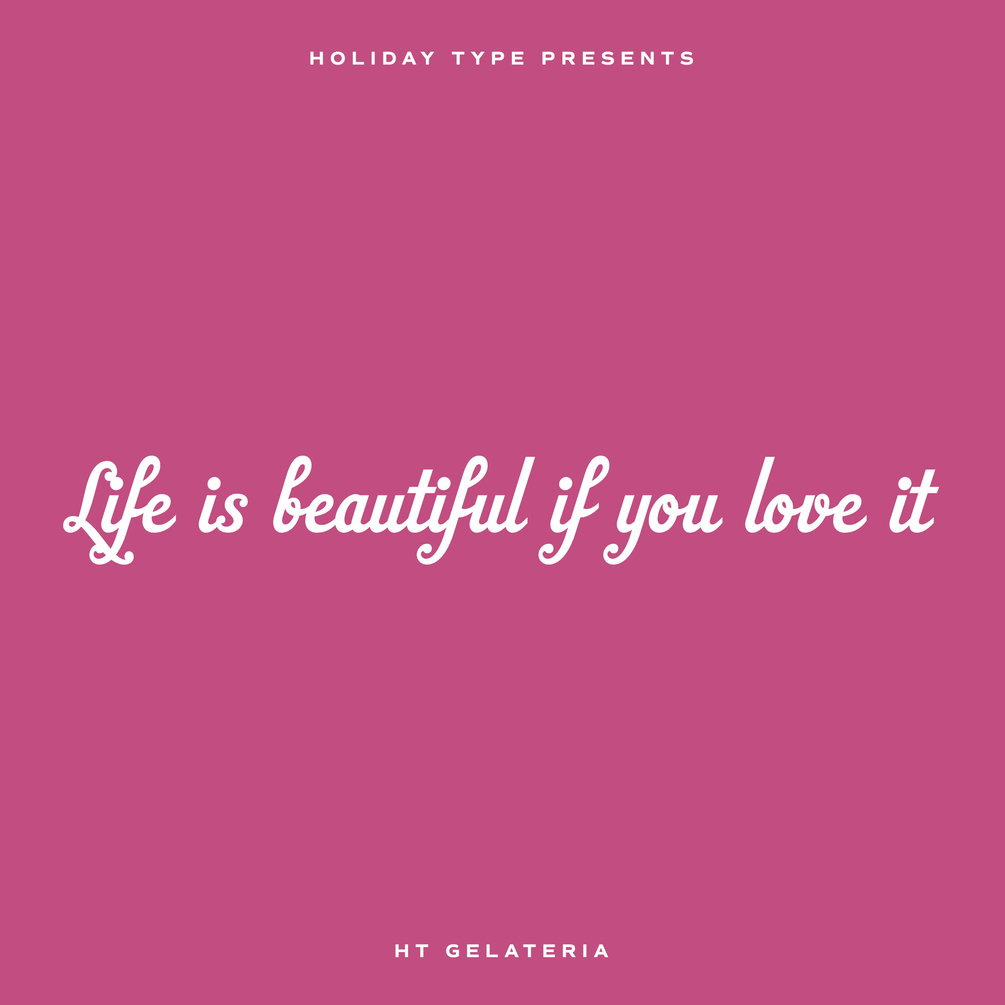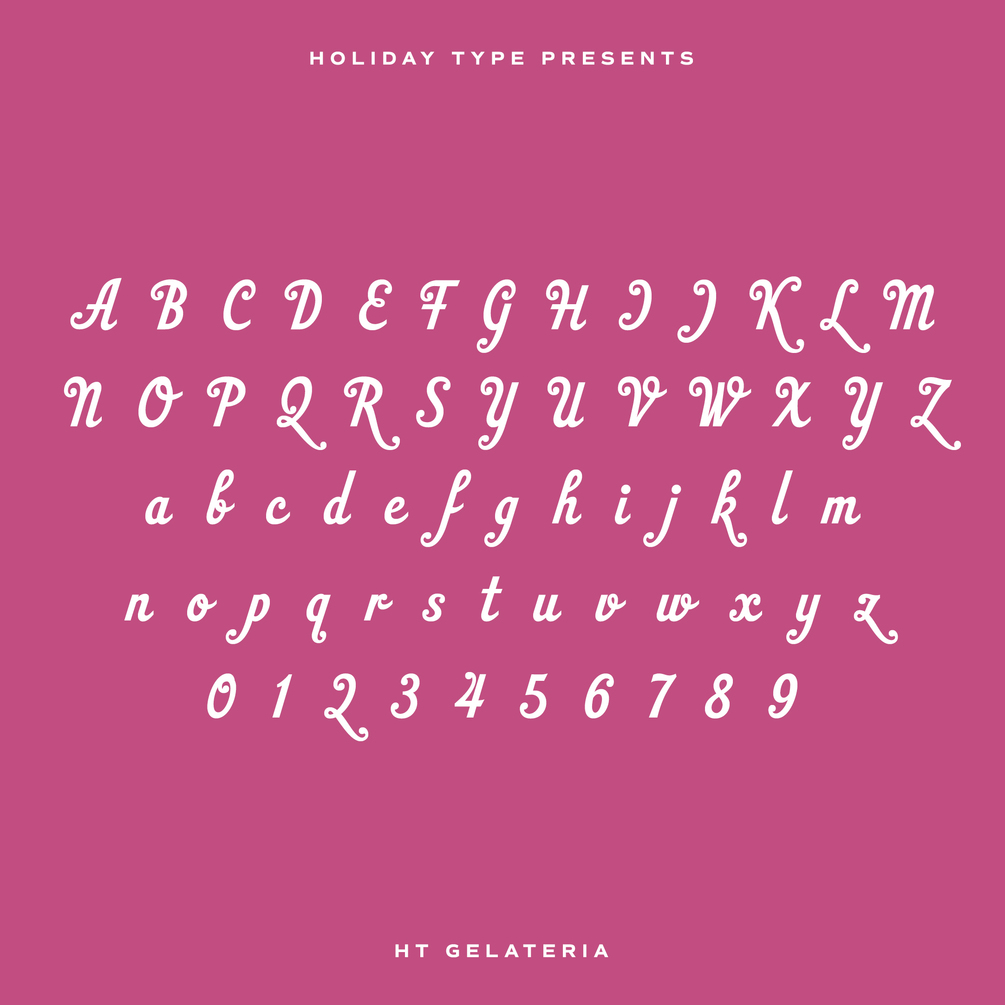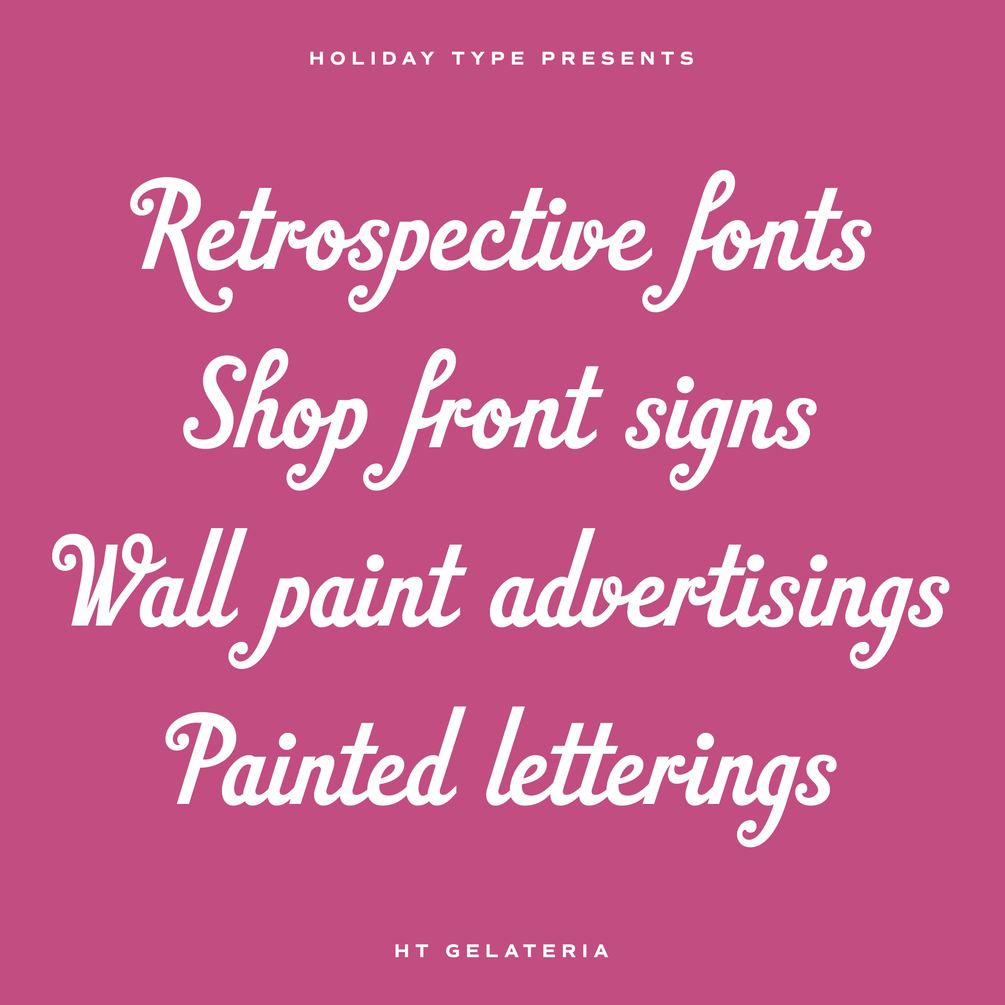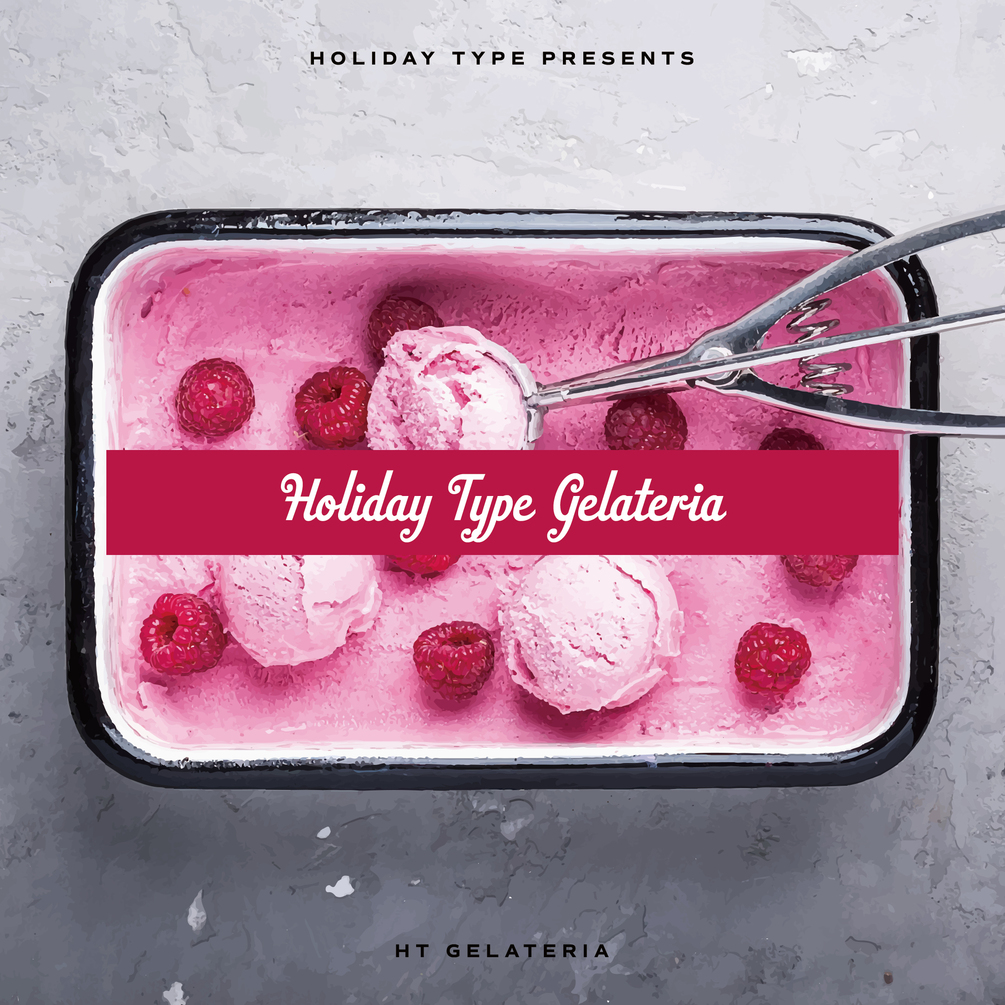
HT Gelateria
Retro script based on shopfront lettering, wallpaint advertisements in Italy around 1950s. Gelateria is characterized by its dots and tails. This font is as a whole smooth and elegant. But because its dots and end of the tails are little points, Gelateria impressed you very much.